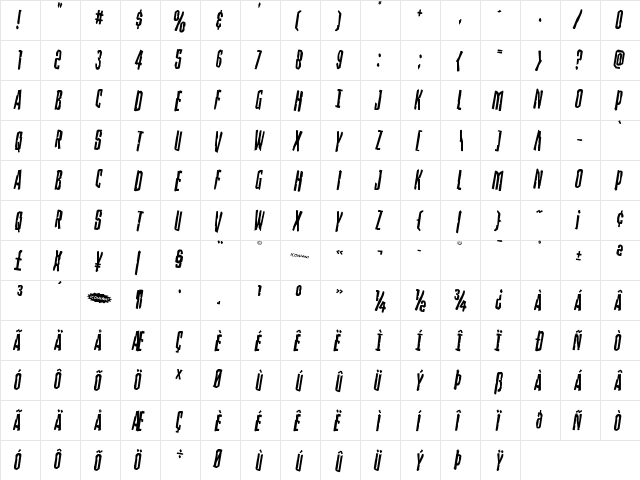
Stranger Danger Rotated Regular
Design Context for Stranger Danger Rotated Typeface
Stranger Danger Rotated is a composed and adaptable typeface that performs quietly and consistently across a wide range of design contexts.
Pro Tip: Pair Stranger Danger Rotated with a font of contrasting weight or personality to build a more expressive typographic hierarchy.